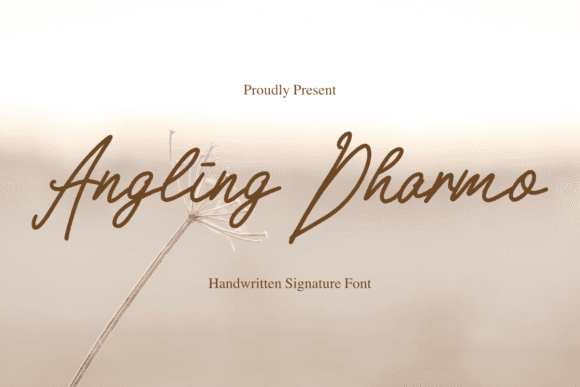
Angling Dharmo Font for Cricut, Silhouette and Printable Designs
This listing includes the Angling Dharmo Font, a font optimized for crafting applications such as vinyl cutting and print-based design. As a member of the font entity category, it is engineered for compatibility with design software and machine workflows.
Its stylish letterforms are clean and well-spaced, ensuring smooth output on Cricut and Silhouette machines. The font also performs well in printable applications such as posters, stationery, and home signage. Whether creating custom invitations or designing unique merchandise, this font enhances any project with its modern aesthetic. Additionally, users can find various holla weekend font download options to suit their creative needs, making it accessible for different design platforms. Its versatility and charm make it a go-to choice for both amateurs and professionals alike. For users seeking additional font choices, the arakan boxing font for cricut offers a bold and dynamic alternative that stands out in any project. This unique typeface complements the sleek design of the holla weekend font, providing creative flexibility for various applications. With such an array of styles available, designers can effortlessly mix and match fonts to create captivating visuals that resonate with their audience.
Whether you're creating layered designs, typographic wall art, or decals, Angling Dharmo brings both flair and function.
- Cut vinyl decals for mugs, tumblers, and walls
- Printable signs and quote posters
- T-shirt designs using heat transfer vinyl
- Custom greeting cards and stationery
- Craft fair signage and label designs
- Perfectly spaced for cutting precision
- Works across print and vinyl projects
- Great for personal or small business output
Q: Can I print this font on stickers or wall art?
A: Yes, Angling Dharmo is print-compatible and perfect for stickers, posters, and other home decor items.